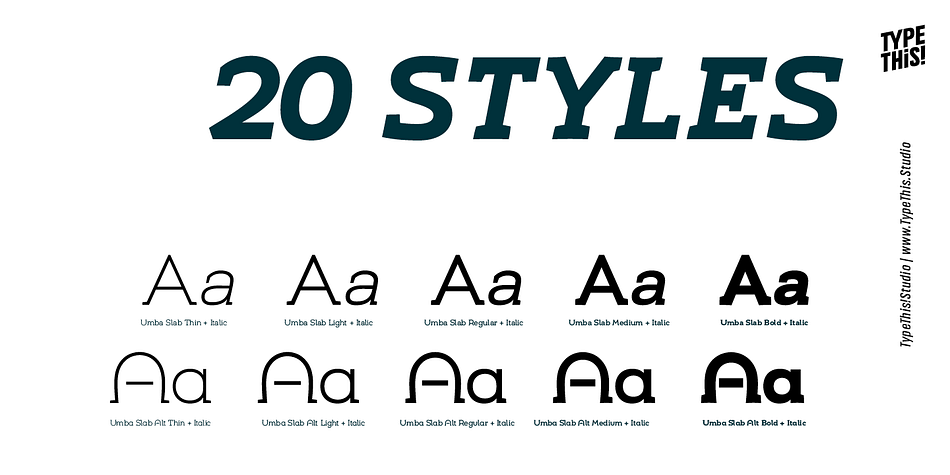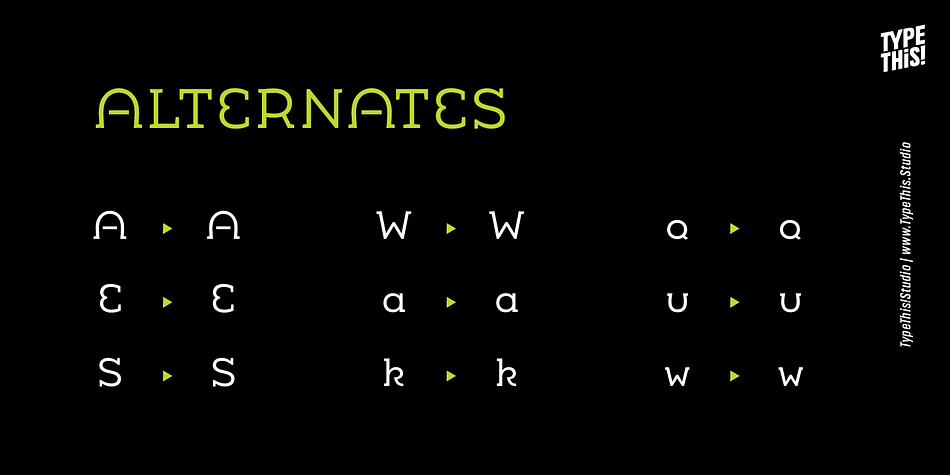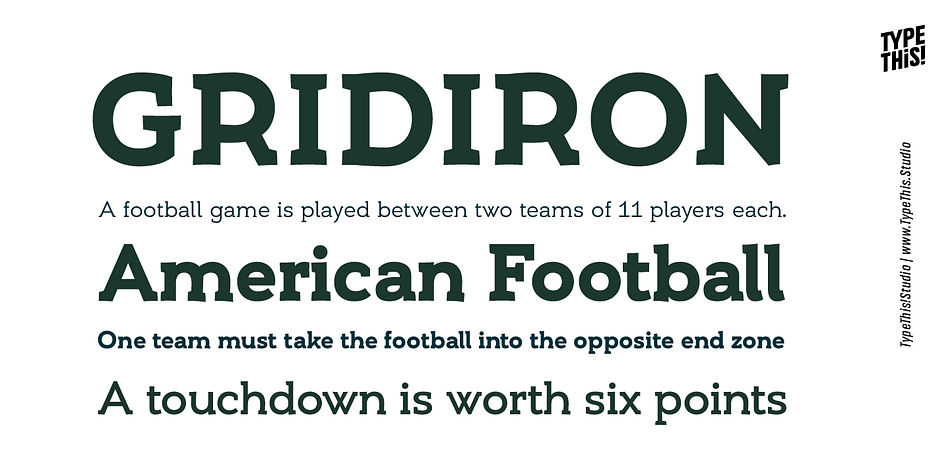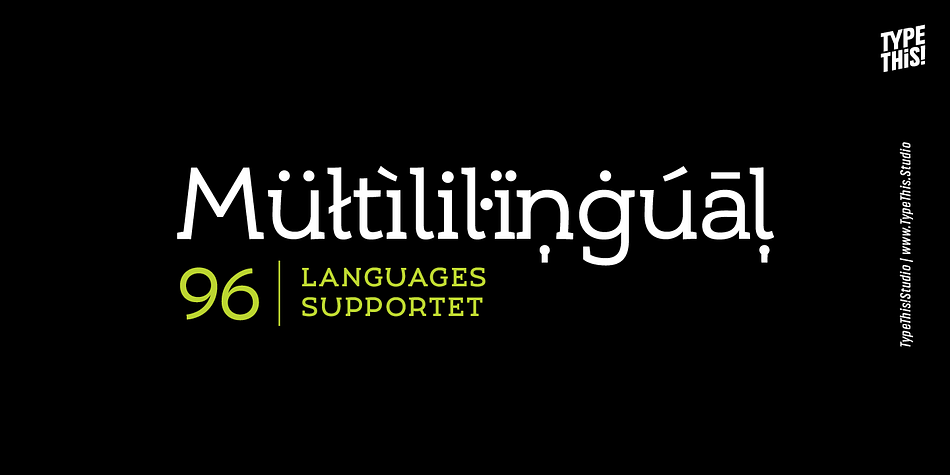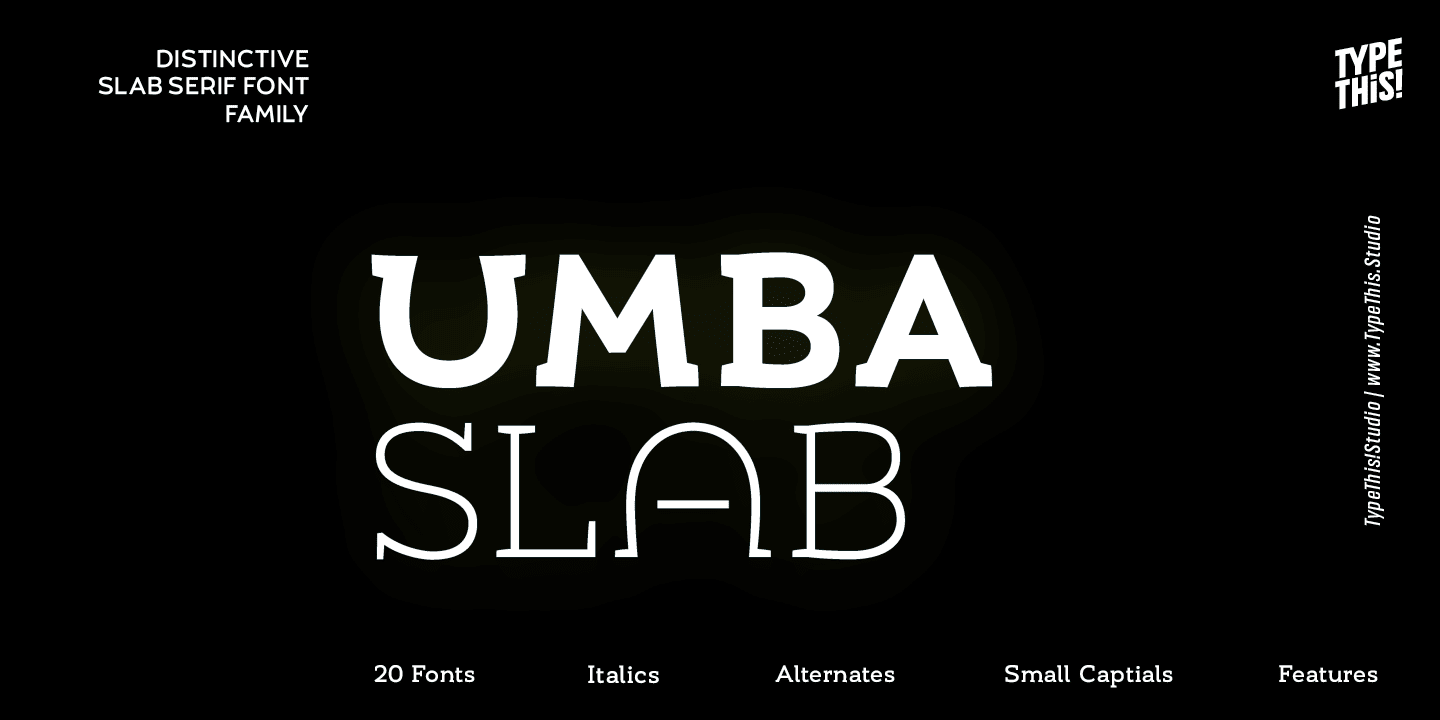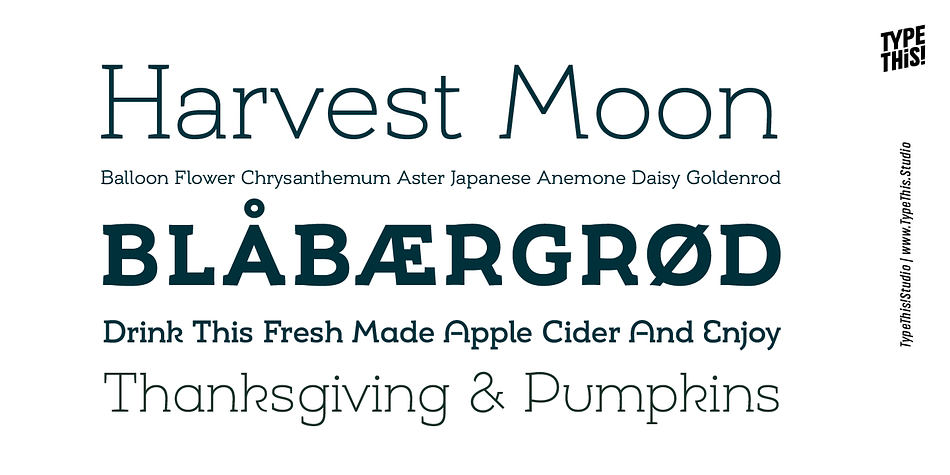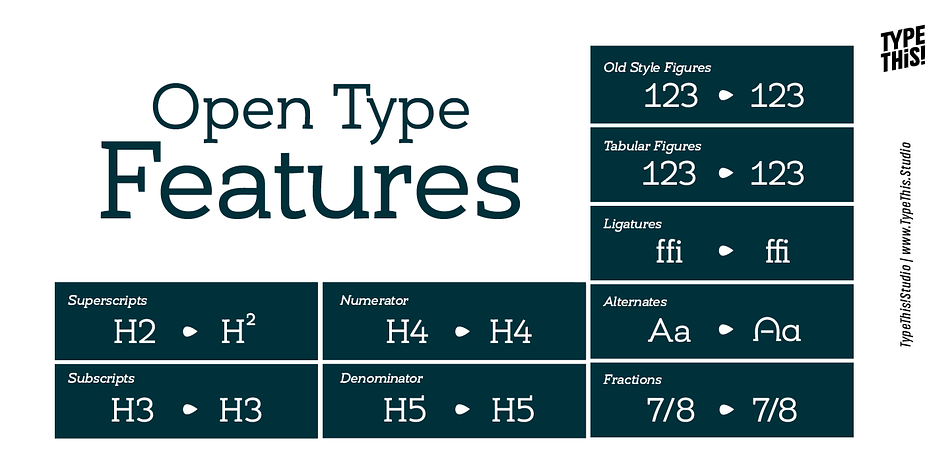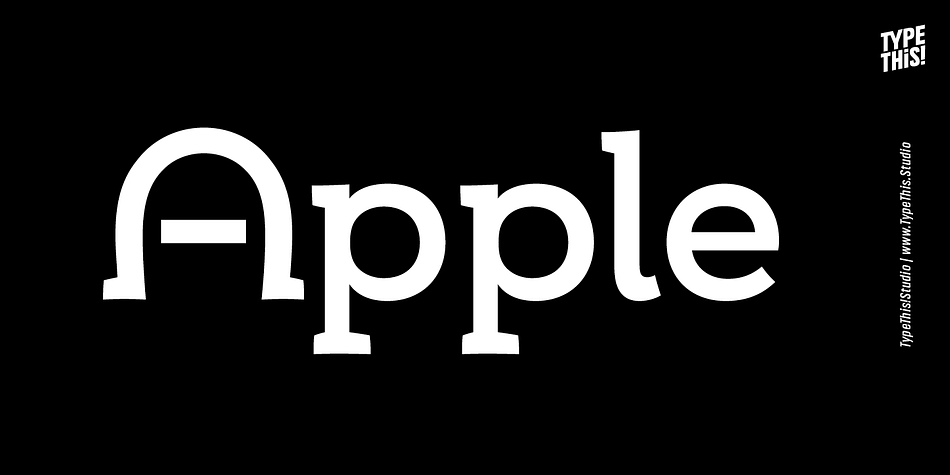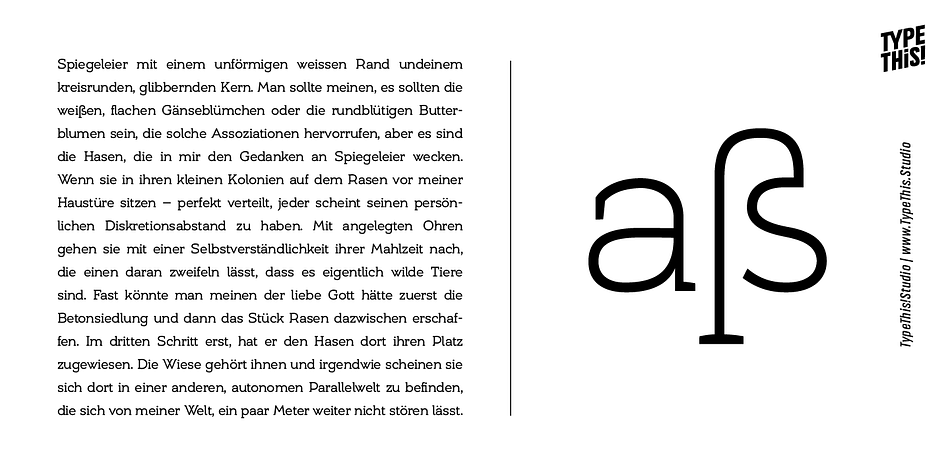
Umba Slab
Umba Slab is a slab serif font family. This typeface has thirty styles and was published by Anita Jürgeleit.
+++ 20 styles +++ 5 weights +++ Italics +++ Alternates +++ Fractions +++ Subscript +++ Superscript +++ Numerator +++ Denominator +++ Old style figures +++ Tabular figures +++ Alternates +++ ff-Ligatures
The best thing about Umba Slab is its surprise!
UMBA Slab is a clean but eye-catching typeface designed by Anita Jürgeleit. It adds an amazing touch to your corporate design and titling by developing a more dynamic shape from thin to bold. It’s especially designed for a wide range of variety and to create a highly recognizable branding and titling.
Twenty styles from thin to bold and matching italics help you to create design with a strong essence. Separate styles for alternate and small caps will show up in your font menu, making sure that you always stay aware of the wide range of possibilities of your new favourite font. Finally, for all those who love caps, there are extra caps-only fonts added to the collections.